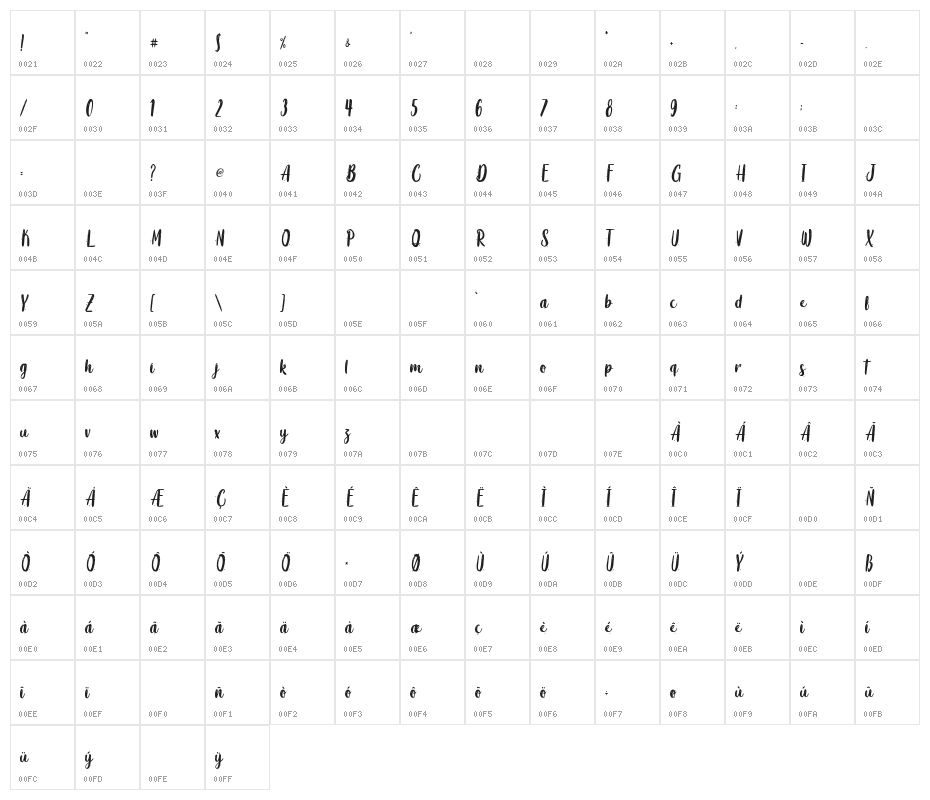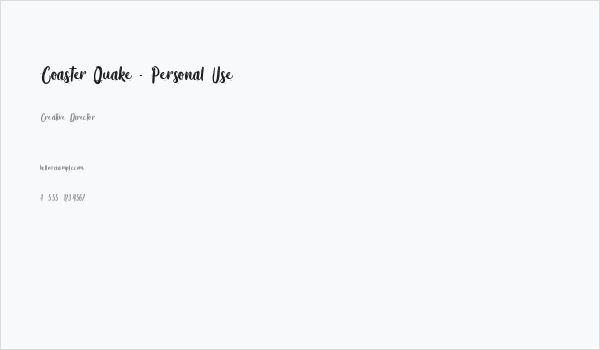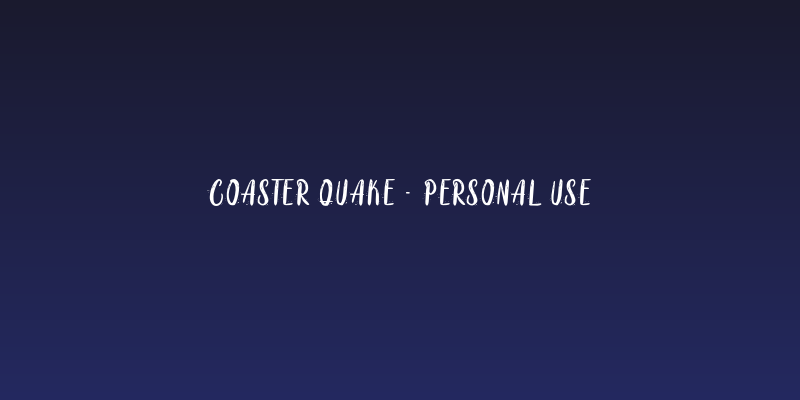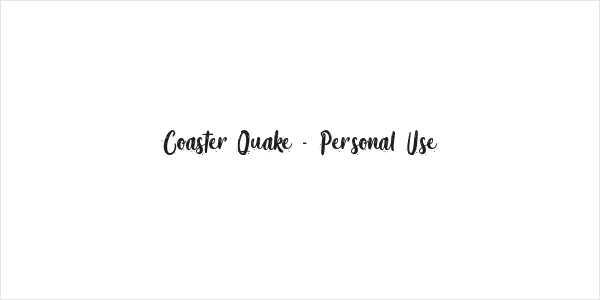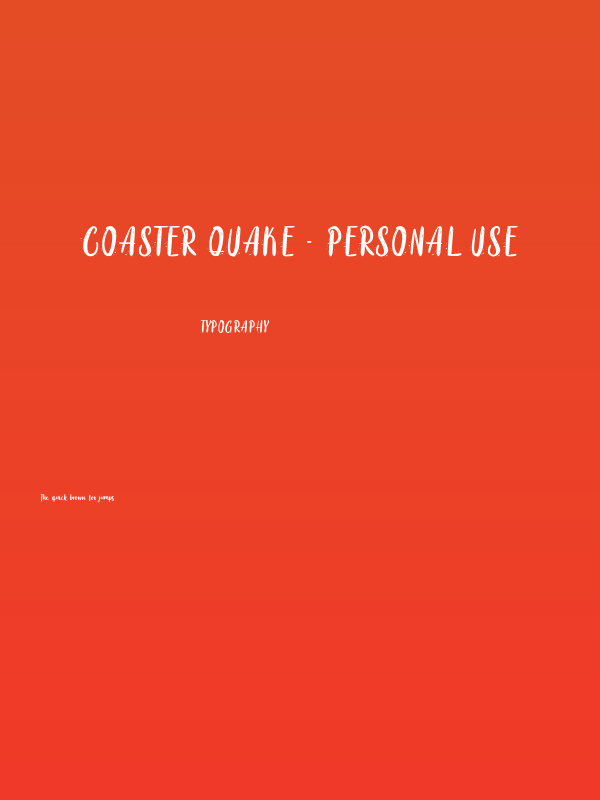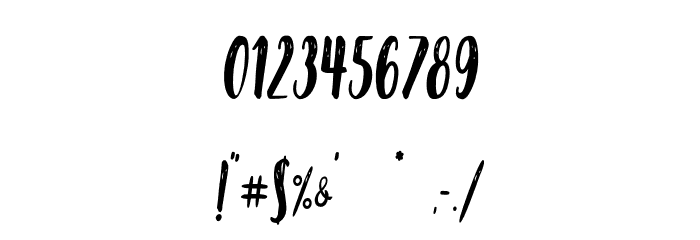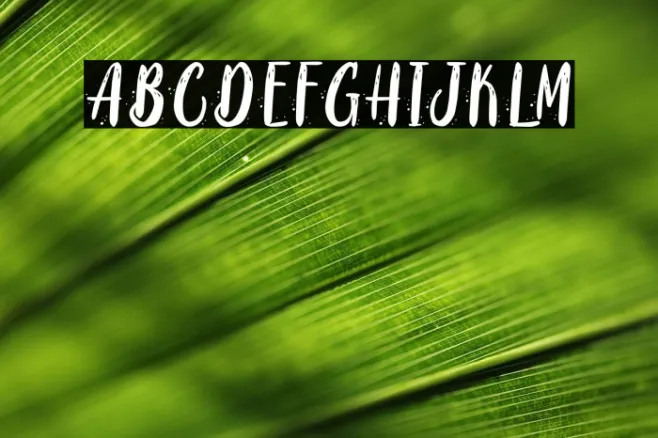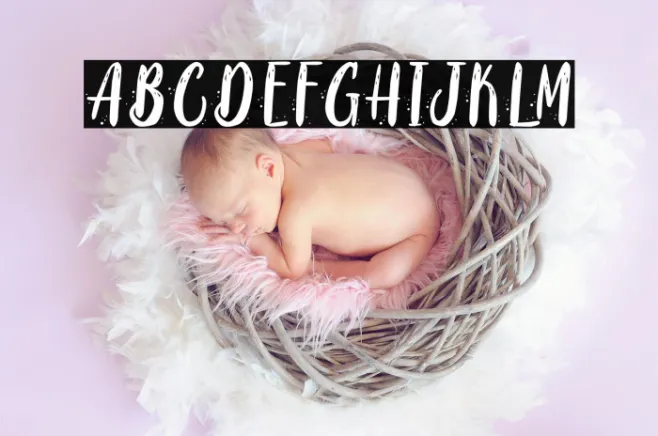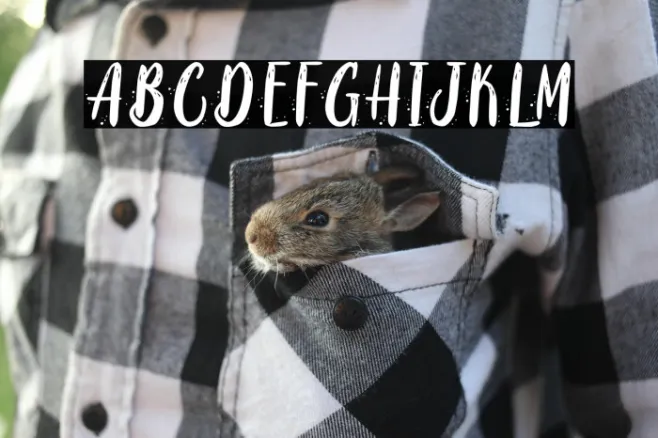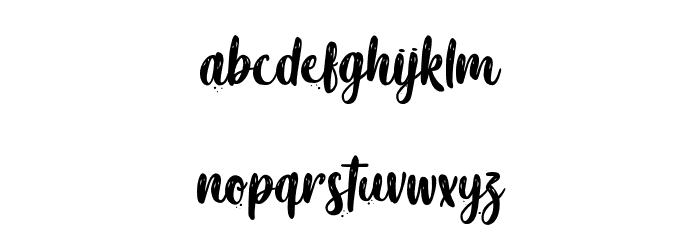
Coaster Quake - Personal Use Font
Coaster Quake - Personal Use Description
This font features a bold and dynamic script style with a textured, distressed appearance. The letters are slightly slanted, giving it a casual and energetic feel. The uppercase and lowercase letters maintain a consistent style, with rounded edges and a hand-drawn look. The numbers and special characters follow the same aesthetic, ensuring a cohesive design. This font's unique texture adds a vintage and artistic touch, making it stand out in any design project.
| Proposed Projects | Ideal for branding, posters, social media graphics, and creative projects that require a bold, artistic touch. |